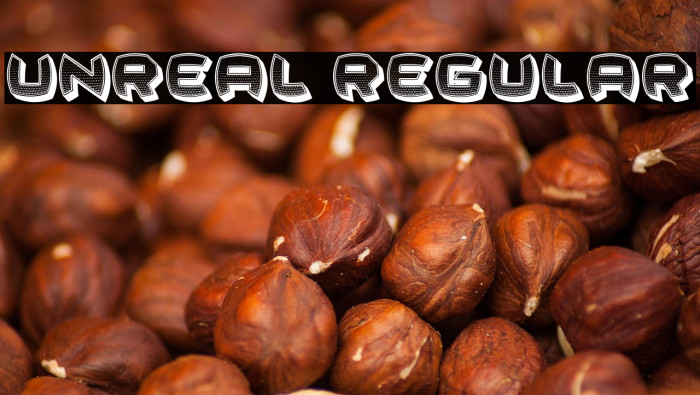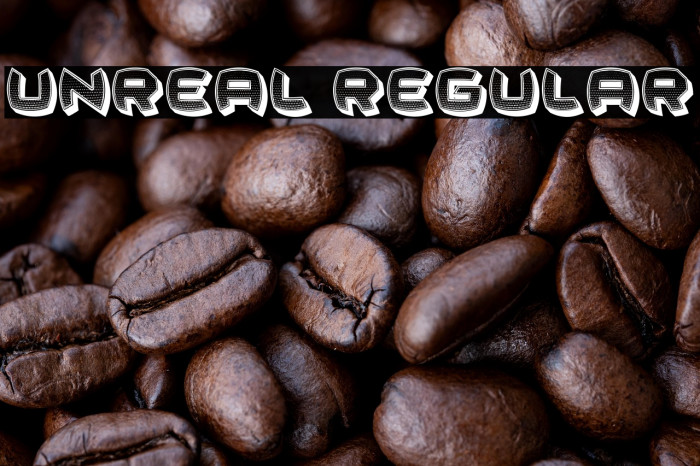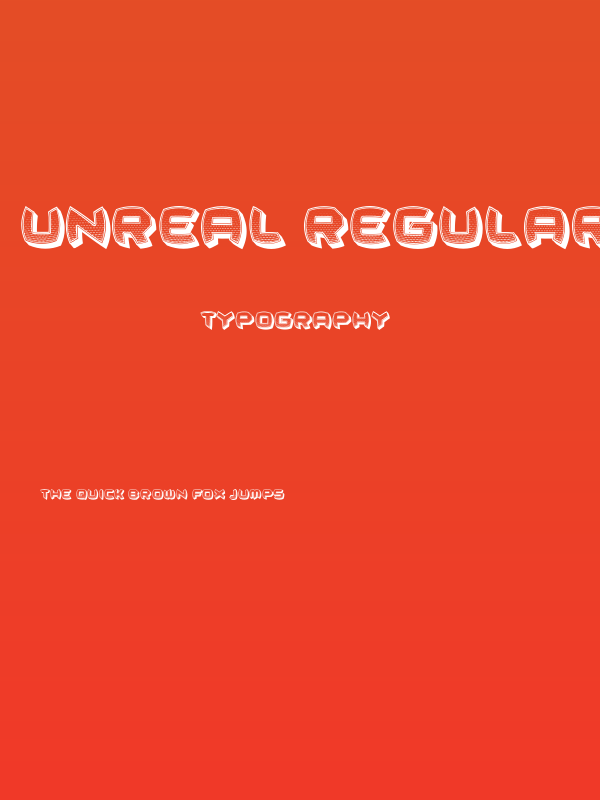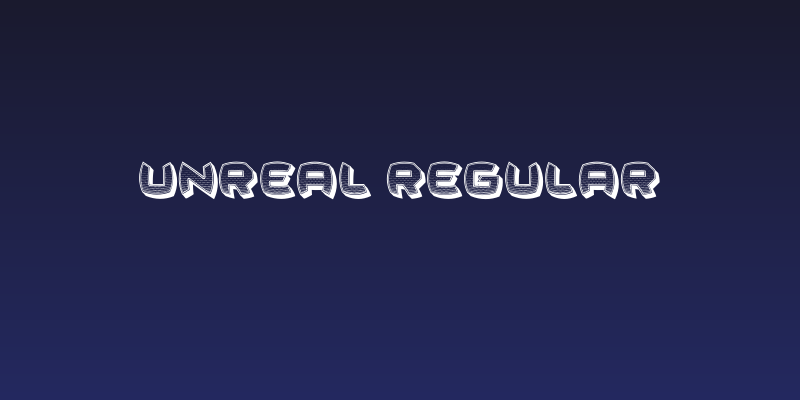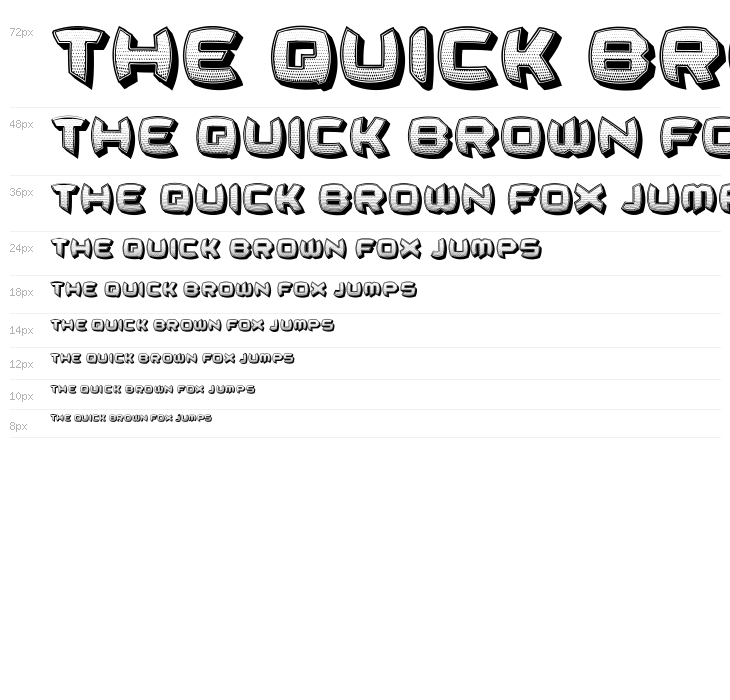
Unreal Regular Font
Unreal Regular Description
This font features a bold, three-dimensional style with a distinct shadow effect that gives each character a sense of depth and volume. The letters are uppercase and have a geometric, block-like structure, making them stand out prominently. The design incorporates a dotted pattern within each character, adding texture and a unique visual interest. The font's playful and dynamic appearance makes it suitable for eye-catching designs. Its boldness and intricate detailing suggest a modern, decorative style, ideal for projects that require a strong visual impact.
| Proposed Projects | Ideal for comic book titles, posters, video game graphics, and branding that requires a bold and playful aesthetic. |